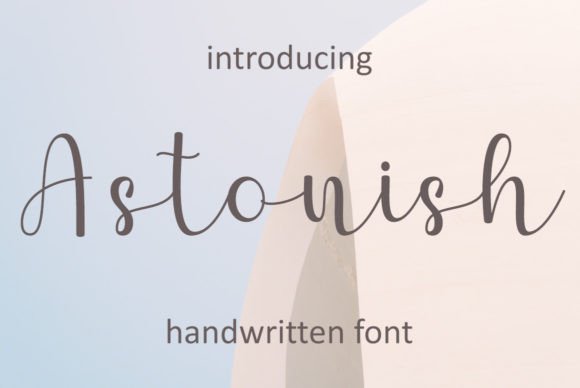
The Designer’s Delight: Astonish Font
I’ll never forget the time I was working on a project for a luxury brand, and I just couldn’t find the right font to match their high-end vibe. I scoured the internet, tried out dozens of fonts, but nothing seemed quite right. That was until I stumbled upon the Astonish font. ✨ It was like a breath of fresh air – elegant, sophisticated, and utterly captivating. In this article, I’ll share my love for this dazzling script font, its features, and how to make the most of it in your designs.
- ✨ Exquisite craftsmanship: Astonish font is meticulously designed, with intricate details that make it a joy to use.
- ✅ Versatility: Whether you’re working on a branding project, a wedding invitation, or a social media graphic, this font adapts seamlessly.
- 💫 Highly legible: Despite its ornate nature, Astonish font remains easy to read, making it perfect for body text and headlines.
While Astonish font is exceptional, there are a few minor considerations to keep in mind: 🤔
- ⚠️ Limited use in body text: While legible, Astonish font is best suited for headlines, titles, and short paragraphs. For longer texts, a more straightforward font might be more suitable.
- ⚠️ Requires attention to spacing: To ensure optimal readability, you may need to adjust the tracking and kerning, especially when using it in larger blocks of text.
- Experiment with OpenType features, such as Stylistic Alternates and Swashes, to add a personal touch to your design.
Astonish font was crafted with inspiration from classic calligraphy and modern digital design. Its creator aimed to create a font that would evoke the elegance of traditional typography while being versatile enough for modern design applications. 💻
Q: What type of projects is Astonish font best suited for?
A: Astonish font excels in projects that require a touch of luxury, sophistication, and elegance, such as branding, weddings, and high-end advertising.
Q: Can I use Astonish font for body text?
A: While Astonish font is legible, it’s best suited for headlines, titles, and short paragraphs. For longer texts, consider pairing it with a more straightforward font.
Q: Does Astonish font support OpenType features?
A: Yes, Astonish font supports OpenType features, including Stylistic Alternates, Swashes, and Glyphs, allowing for a high degree of customization.